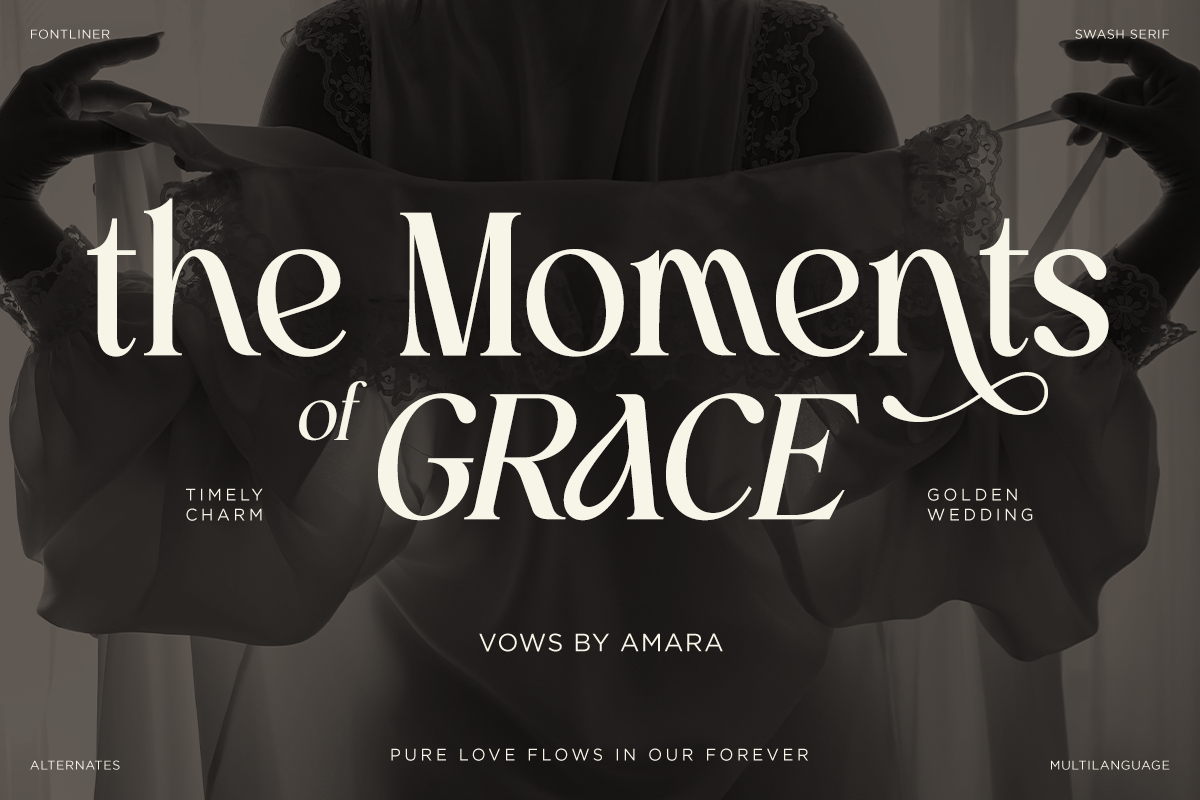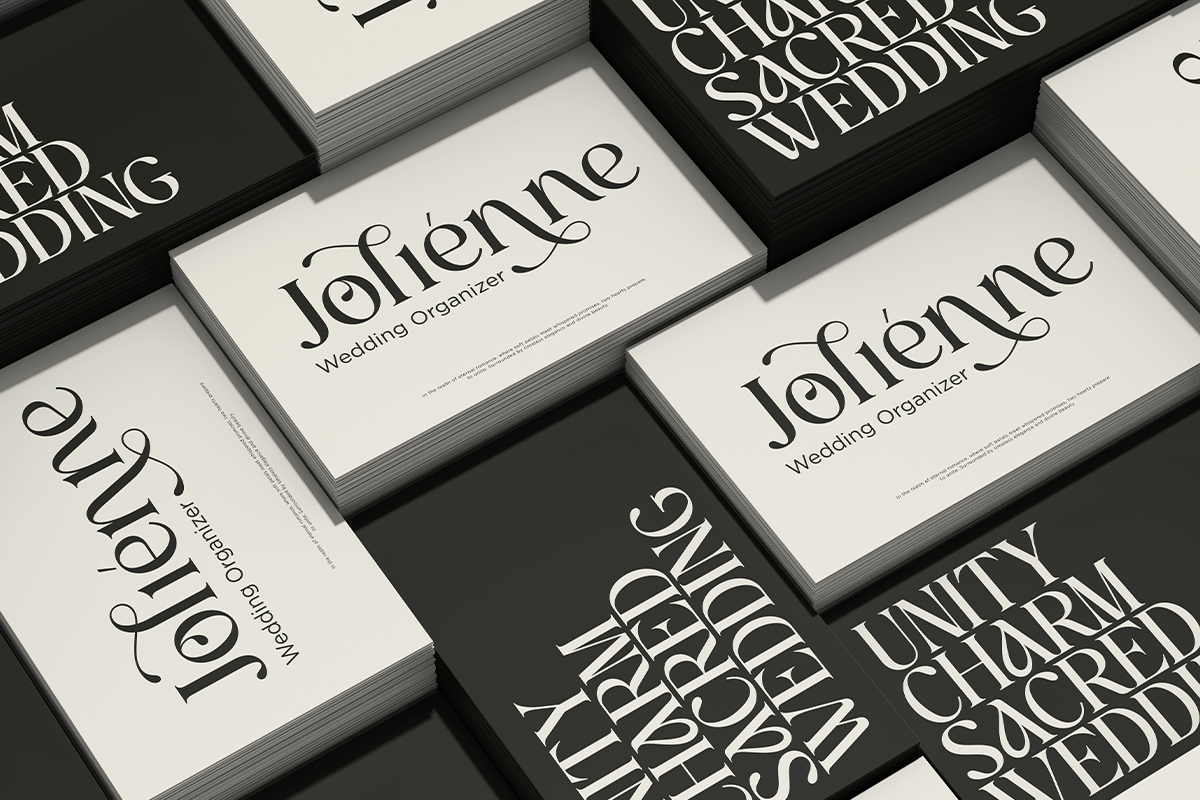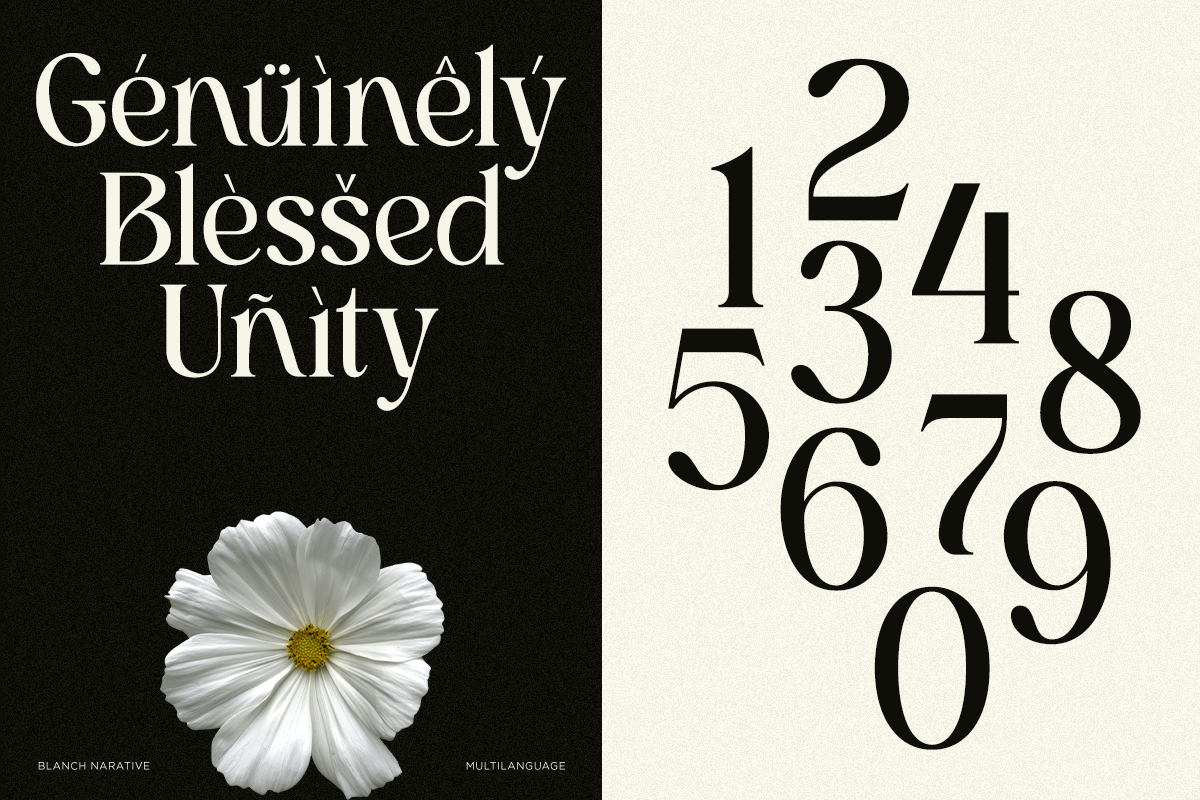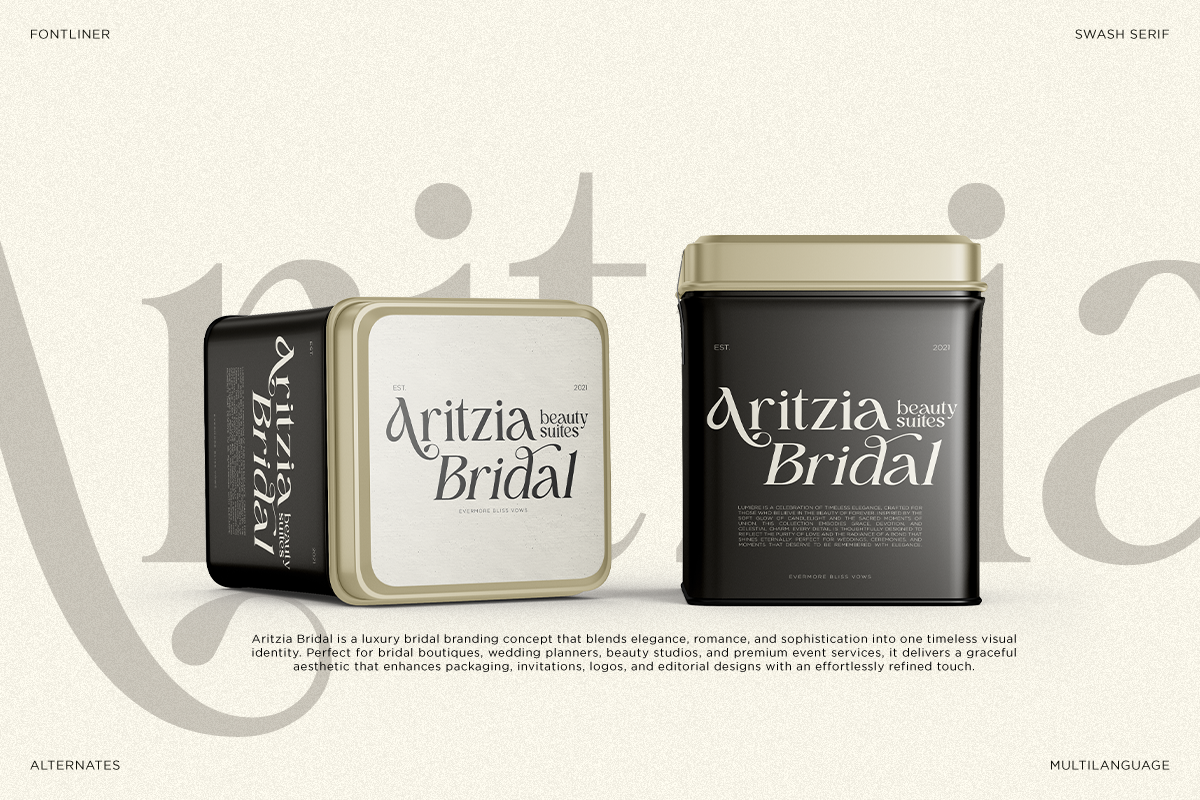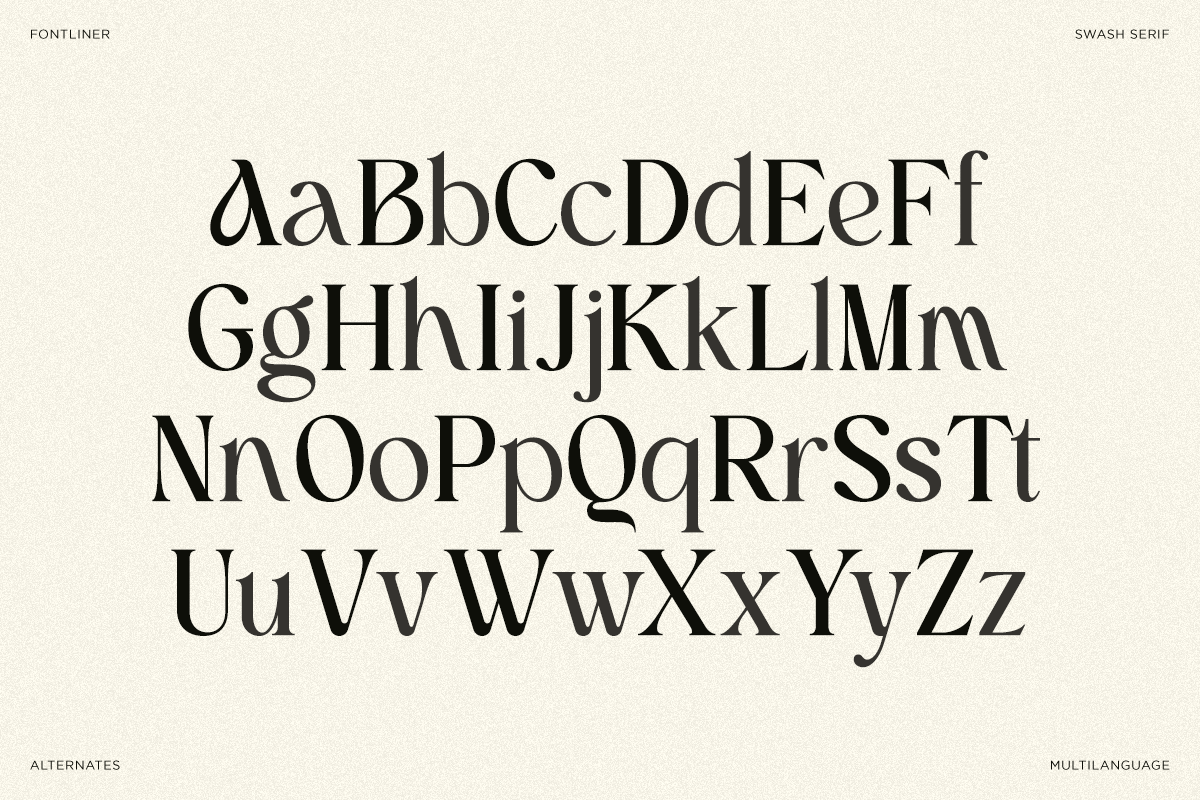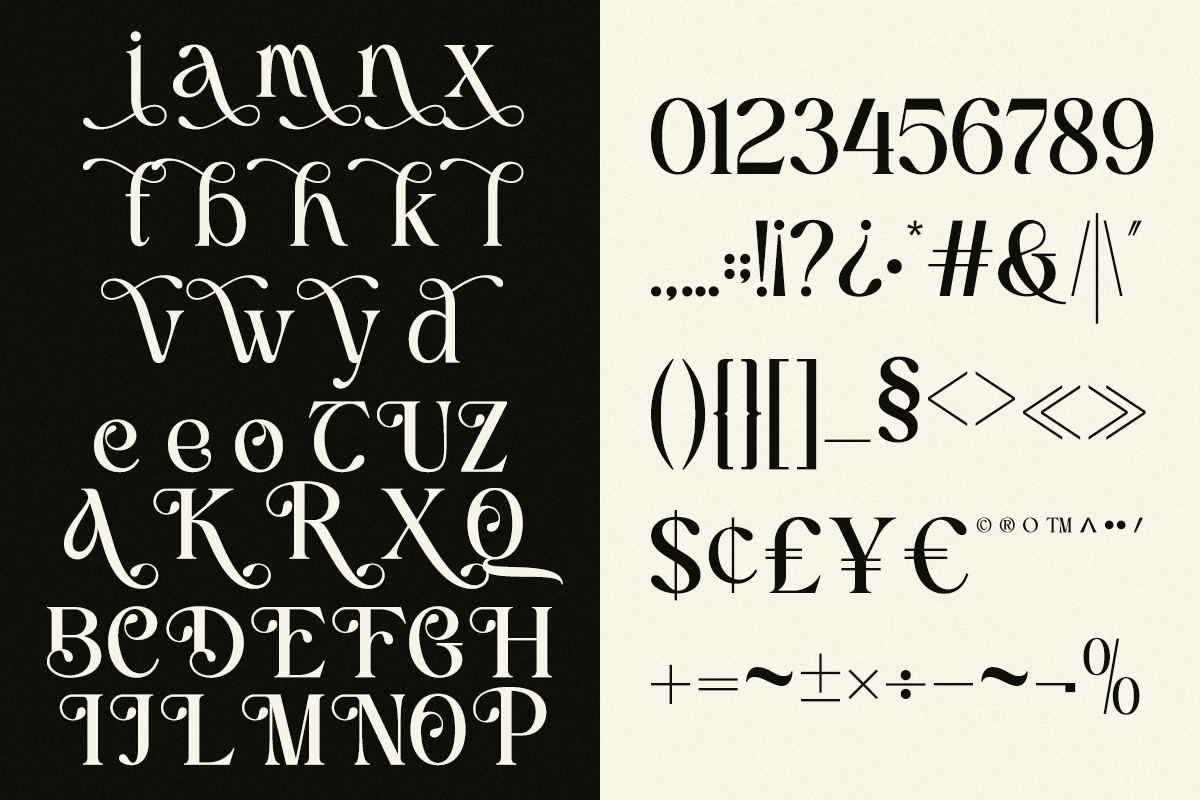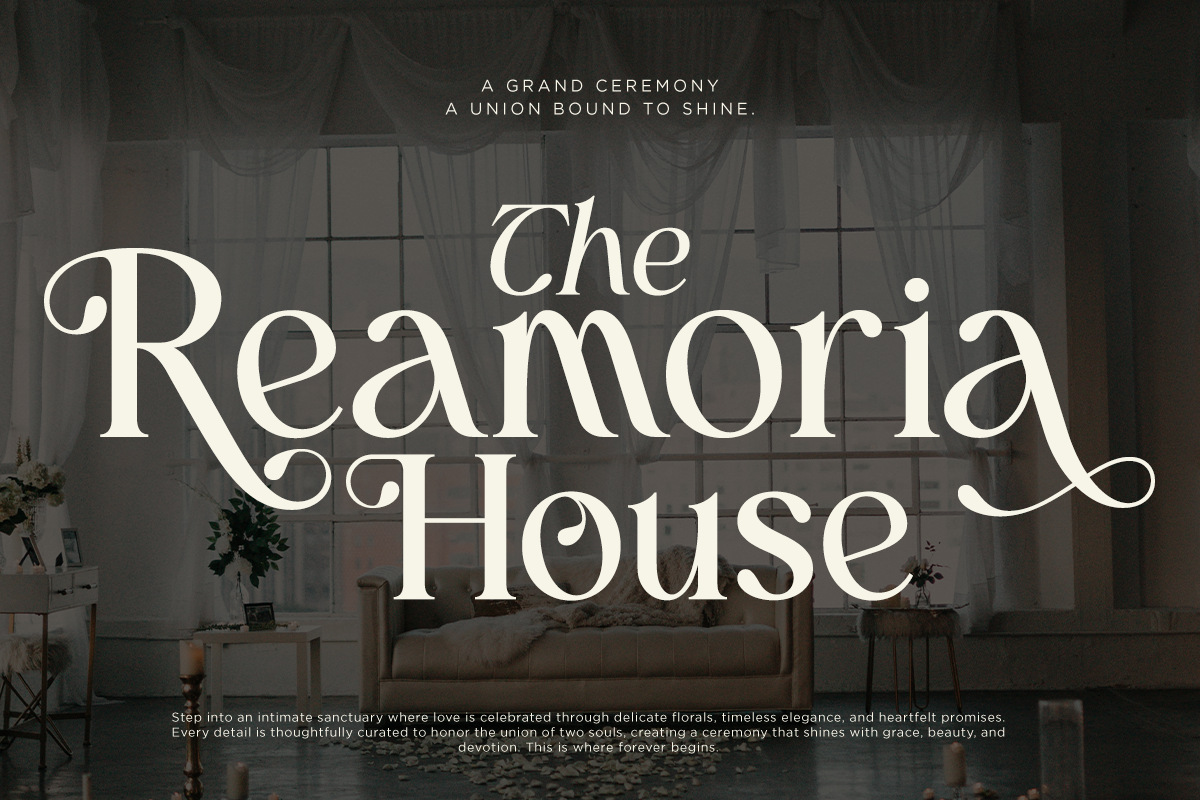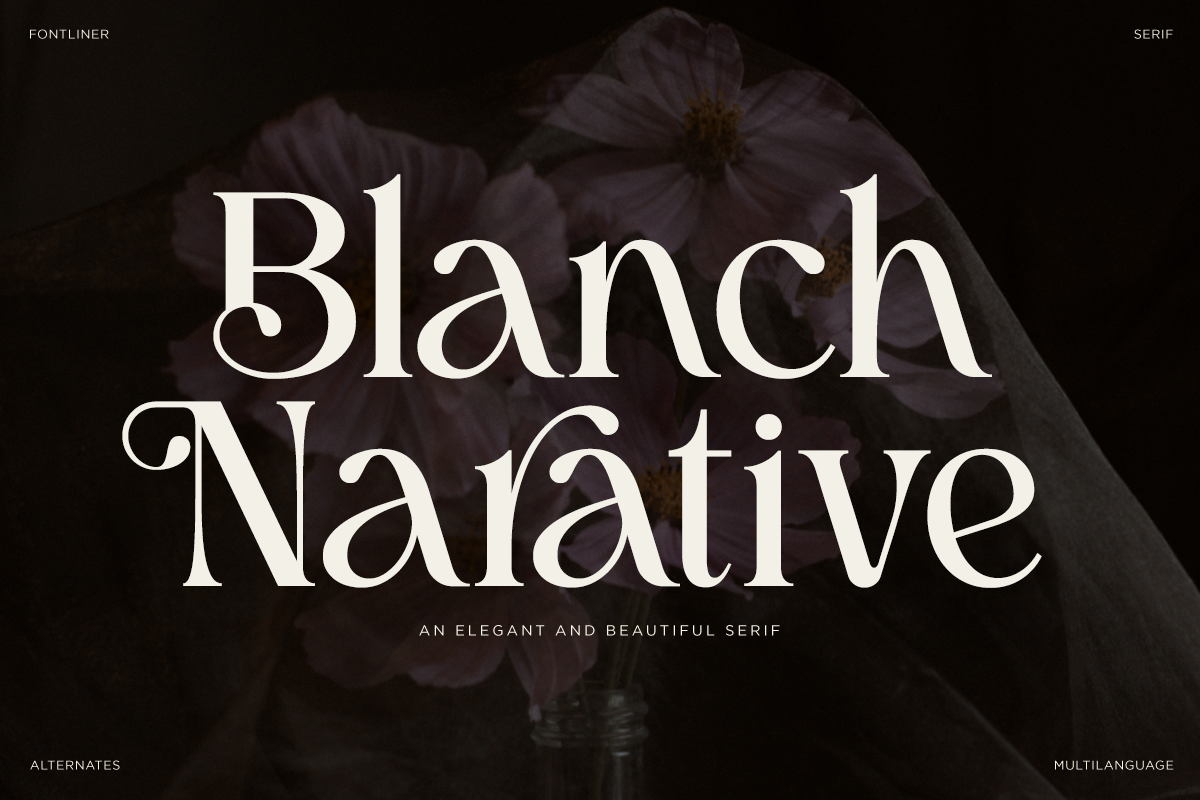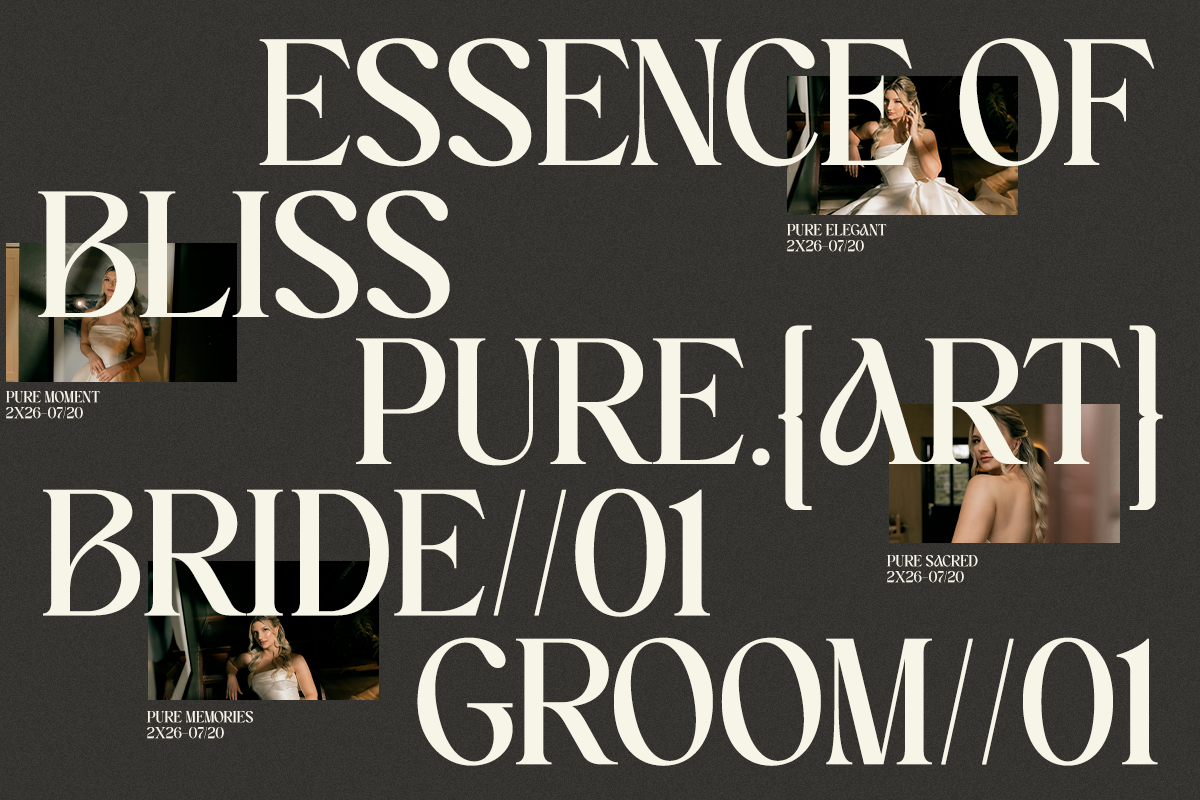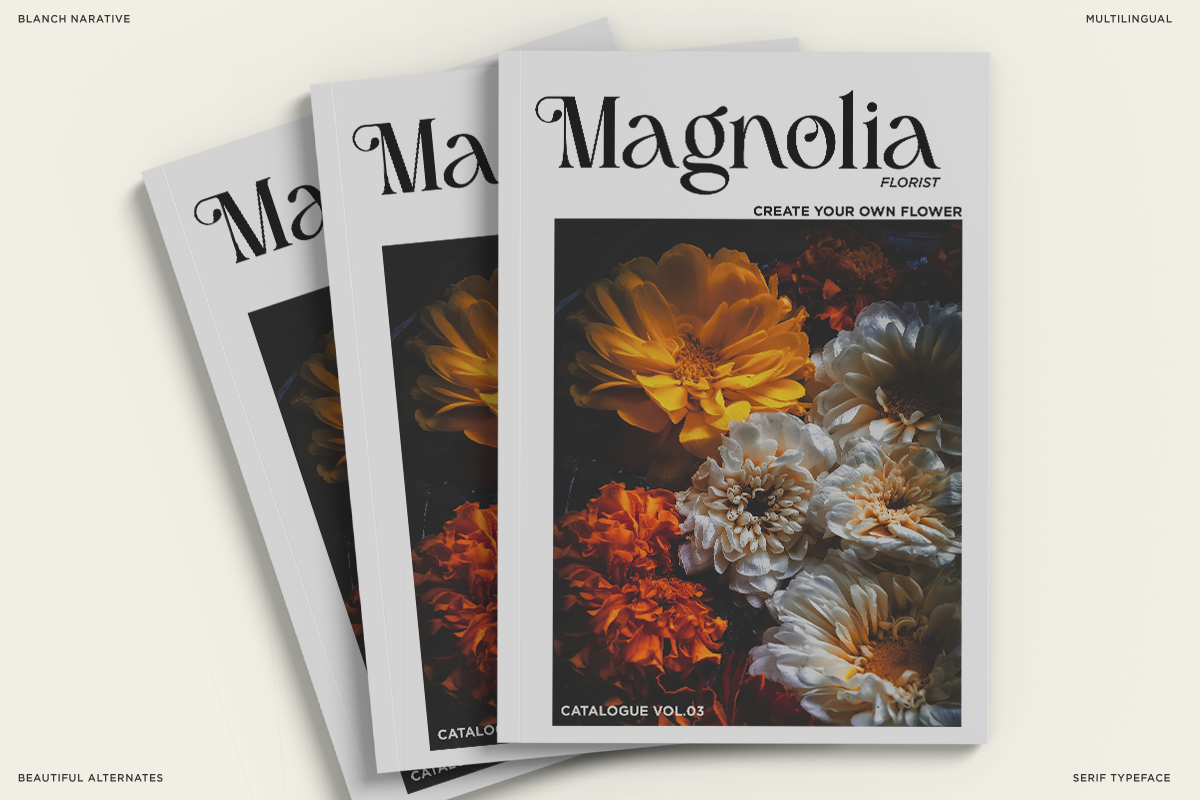
Blach Narative - Beauty Serif Font
Blanch Narative is a luxury modern serif font designed to capture timeless elegance with a contemporary editorial touch. Featuring graceful curves, refined contrast, and sophisticated ligatures, this typeface delivers an exclusive aesthetic that enhances premium branding and creative design projects.
Perfect for luxury logos, wedding invitations, fashion editorials, beauty branding, cosmetic packaging, boutique identities, magazines, book covers, social media graphics, and high-end marketing materials, Blanch Narative combines classic sophistication with modern versatility. Every character is thoughtfully crafted to create a polished and memorable visual experience.
Regular and Italic
Stylistic alternates
Number, Symbol, and Punctuation